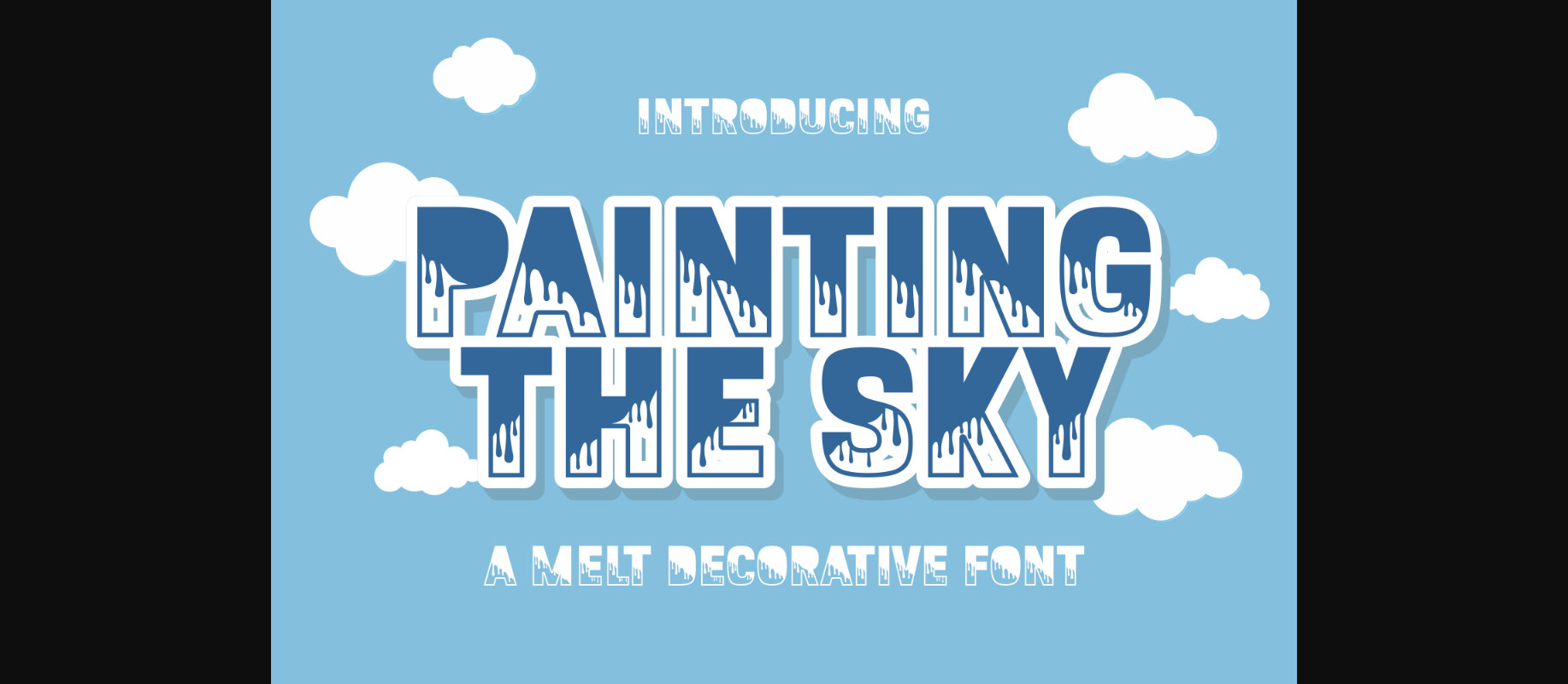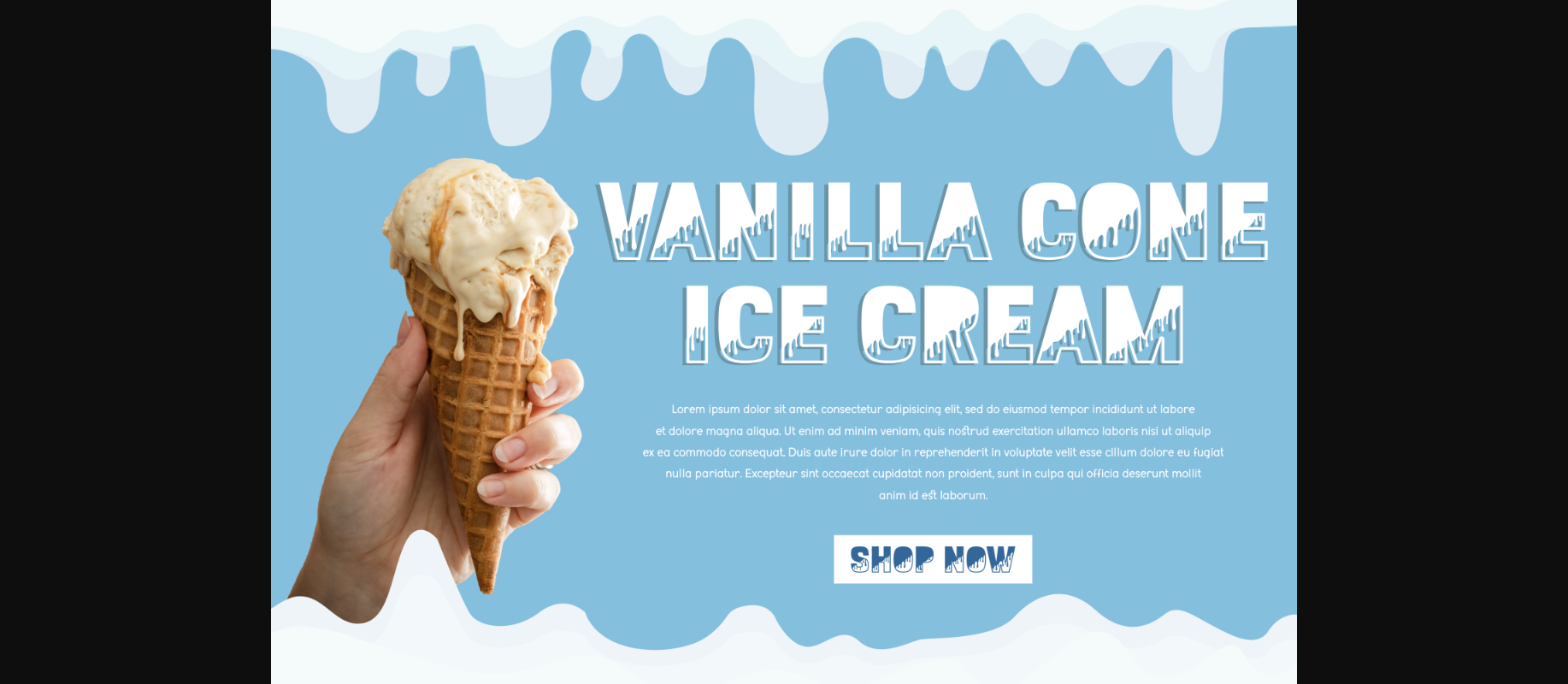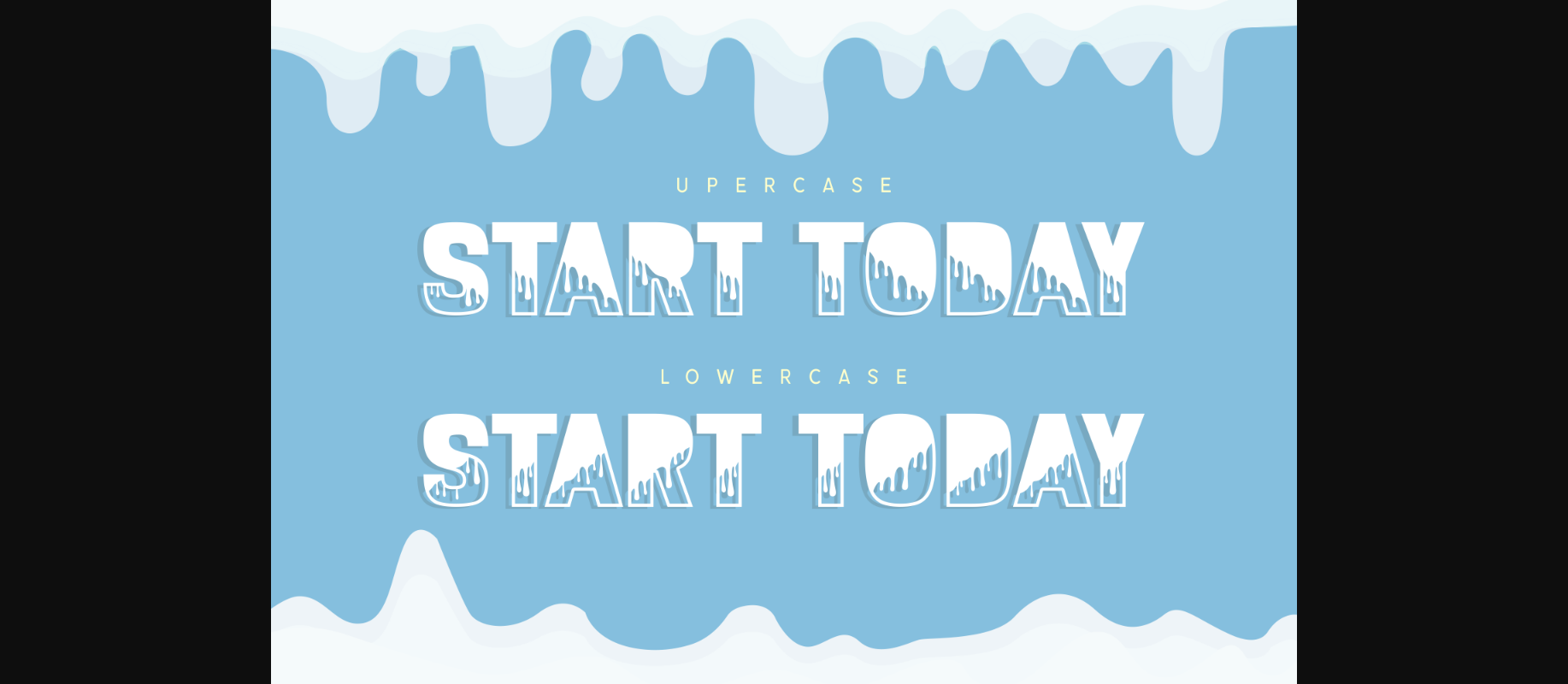
About Painting the Sky Font
Painting the Sky is a fun and creative decorative font. Personalize your typography designs with this unique set of characters! The liquid drippings are everything you need for branding and advertising ice cream or paint, and many more!